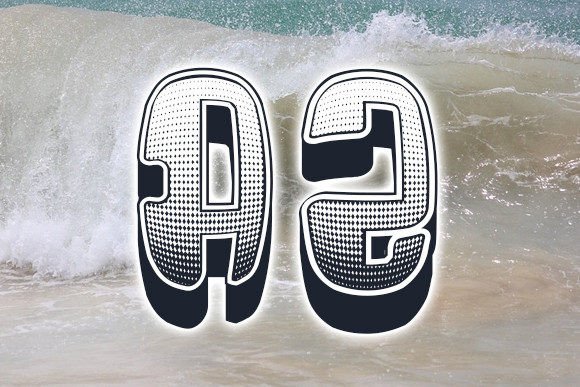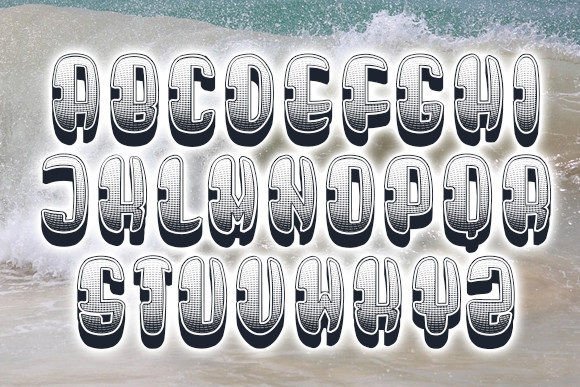
Gulliver Font: Elevate Your Designs with a Stunning 3D Typeface
Are you tired of using the same old fonts in your designs? Do you want to add a touch of uniqueness and sophistication to your banners, headlines, and t-shirts? Look no further than the Gulliver Font, an awesome 3D typeface that will make your designs look stunning.
What is Gulliver Font?
Gulliver Font is a modern, 3D typeface designed to add depth and dimension to your designs. Its sleek and clean lines make it perfect for a wide range of applications, from advertising and branding to fashion and crafts. Whether you’re a professional designer or a DIY enthusiast, Gulliver Font is sure to impress.
Key Features of Gulliver Font
• Unique 3D Design: Gulliver Font features a distinctive 3D design that adds depth and visual interest to your designs.
• High-Quality Resolution: The font is available in high-quality resolution, ensuring that it looks great even when scaled up or down.
• Versatile: The font can be used for a wide range of applications, including banners, headlines, t-shirts, and more.
Why Use Gulliver Font?
So why choose Gulliver Font for your designs? Here are just a few reasons:
• Add Visual Interest: The 3D design of Gulliver Font adds visual interest and depth to your designs, making them more engaging and attention-grabbing.
• Stand Out from the Crowd: With its unique design, Gulliver Font helps your designs stand out from the crowd and establishes your brand identity.
• Perfect for Branding: The font’s sleek and modern design makes it perfect for branding and advertising applications.
• Great for Crafts: Gulliver Font is also great for crafters, adding a professional touch to DIY projects such as t-shirts, mugs, and more.
Here are a few tips and tricks for getting the most out of Gulliver Font:
• Experiment with Colors: Try out different colors and textures to add depth and visual interest to your designs.
• Play with Size: Experiment with different font sizes to create visual hierarchy and emphasis.
• Combine with Other Fonts: Combine Gulliver Font with other fonts to create a unique and visually appealing design.
In conclusion, Gulliver Font is an awesome 3D typeface that will make your designs look stunning. With its unique design, high-quality resolution, and ease of use, it’s perfect for designers and crafters alike. Whether you’re looking to add visual interest, stand out from the crowd, or establish your brand identity, Gulliver Font is the perfect choice.